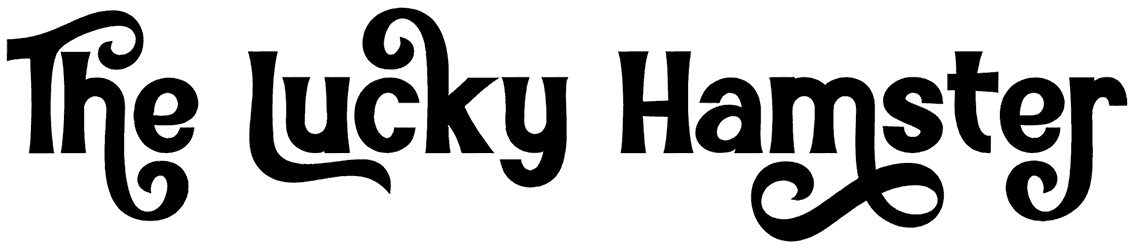
The Lucky Hamster Font
If you’re looking for a fancy, romantic font, go no further than Lucky Hamster. This font’s playful letters are likely to put a smile on your face. The Lucky Hamster is the ideal 70s font for creating a romantic atmosphere, whether you’re making wedding invites, writing love notes, or just wanting to spice up your designs. Therefore, there’s no need to hold off. Visit RB now to get The Lucky Hamster; you’ll be doing your projects (and your soul) a favor.